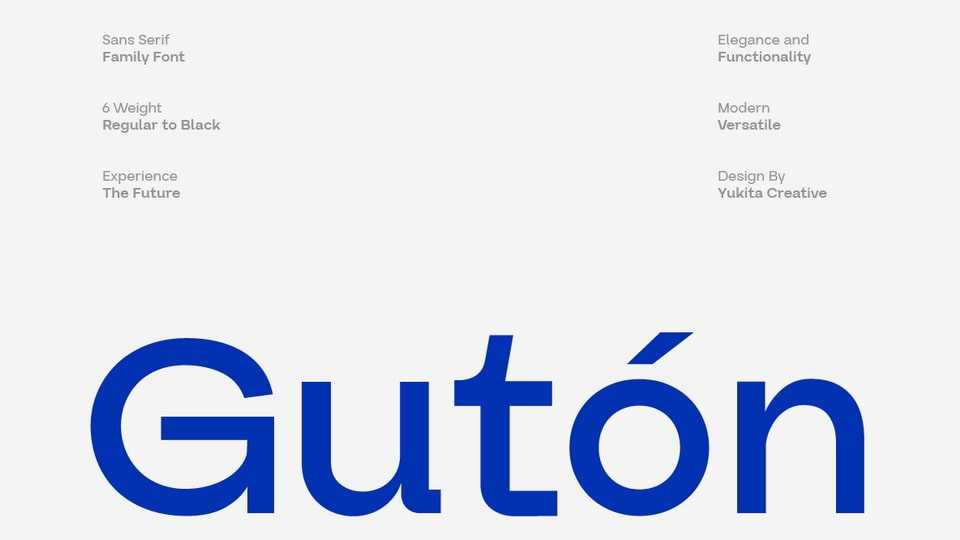
Download Guton Sans font, a sans serif typeface, bringing clarity and boldness to every design. With clean lines and balanced proportions, this font is suitable for printed materials and web designs.
Designer: Yukita Creative